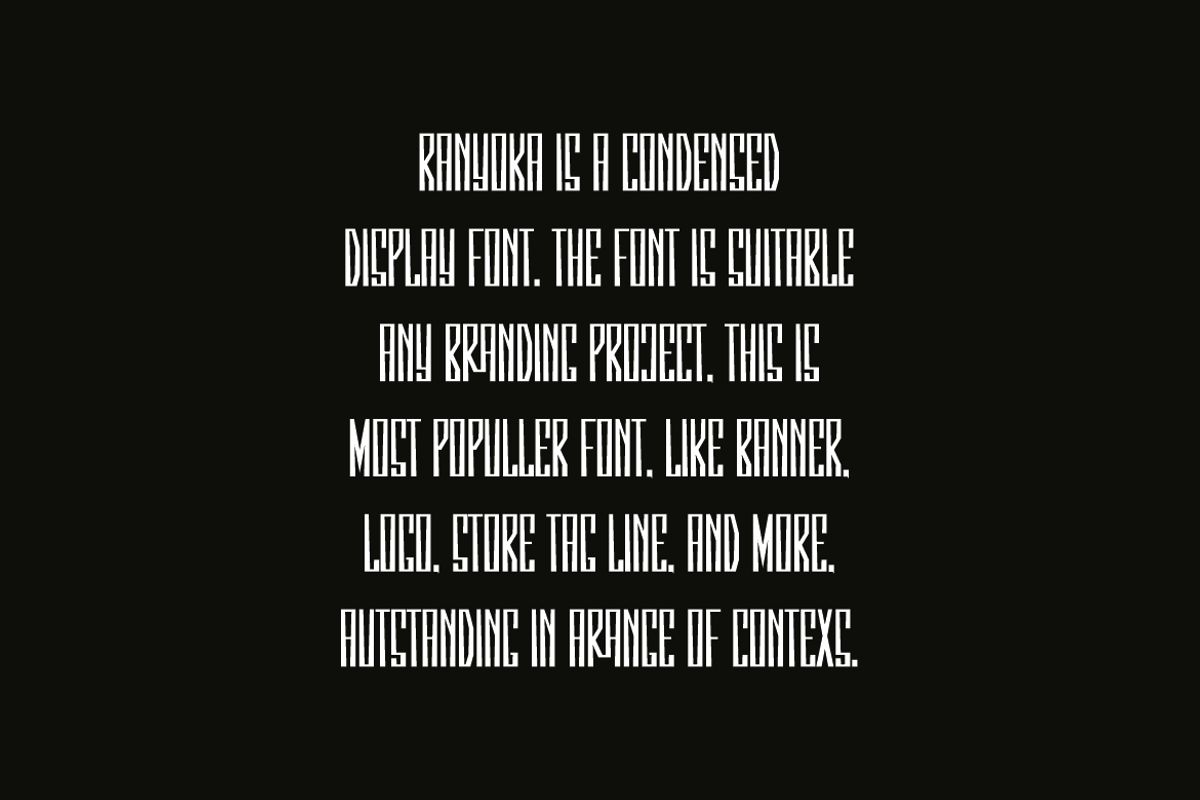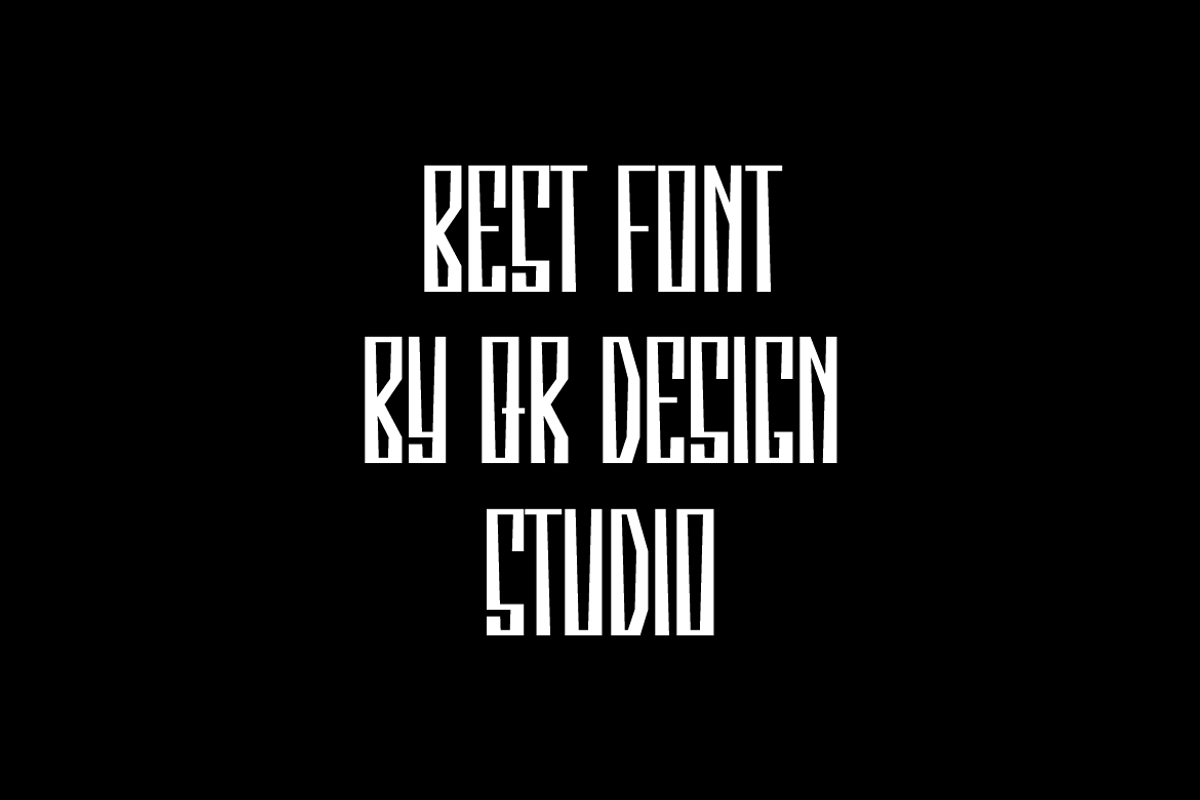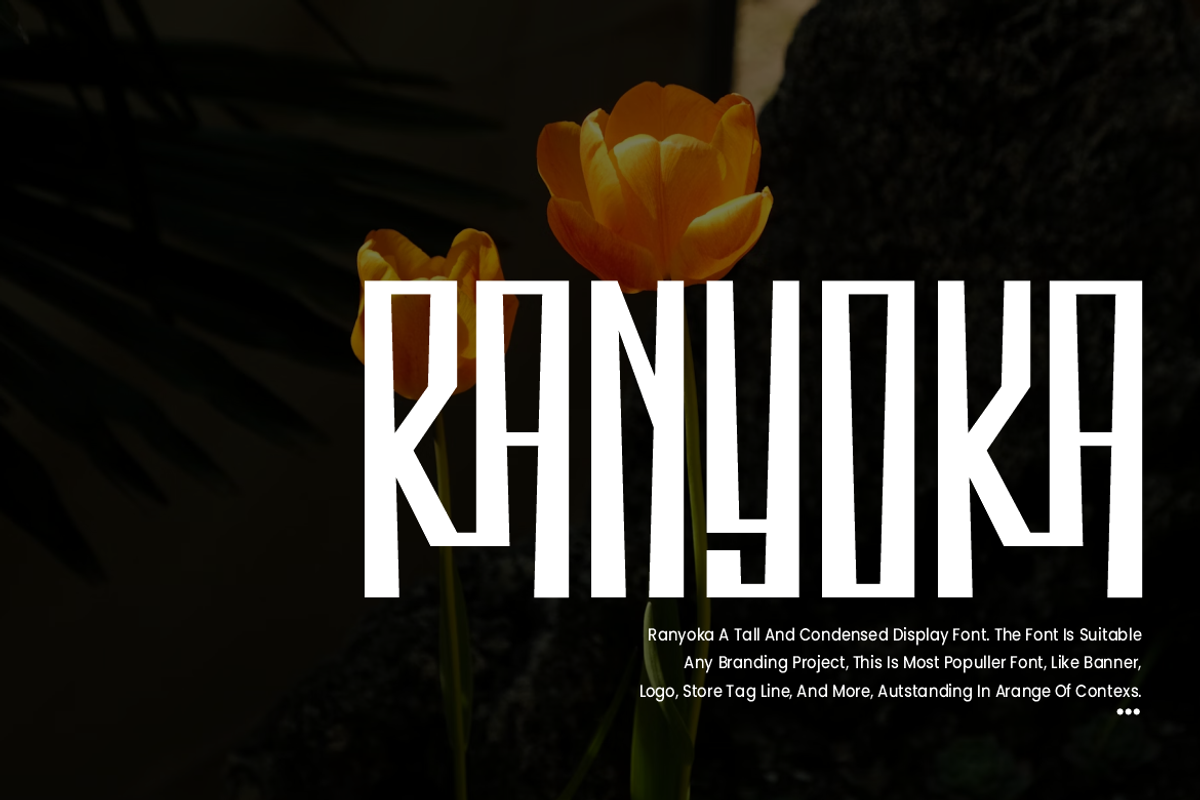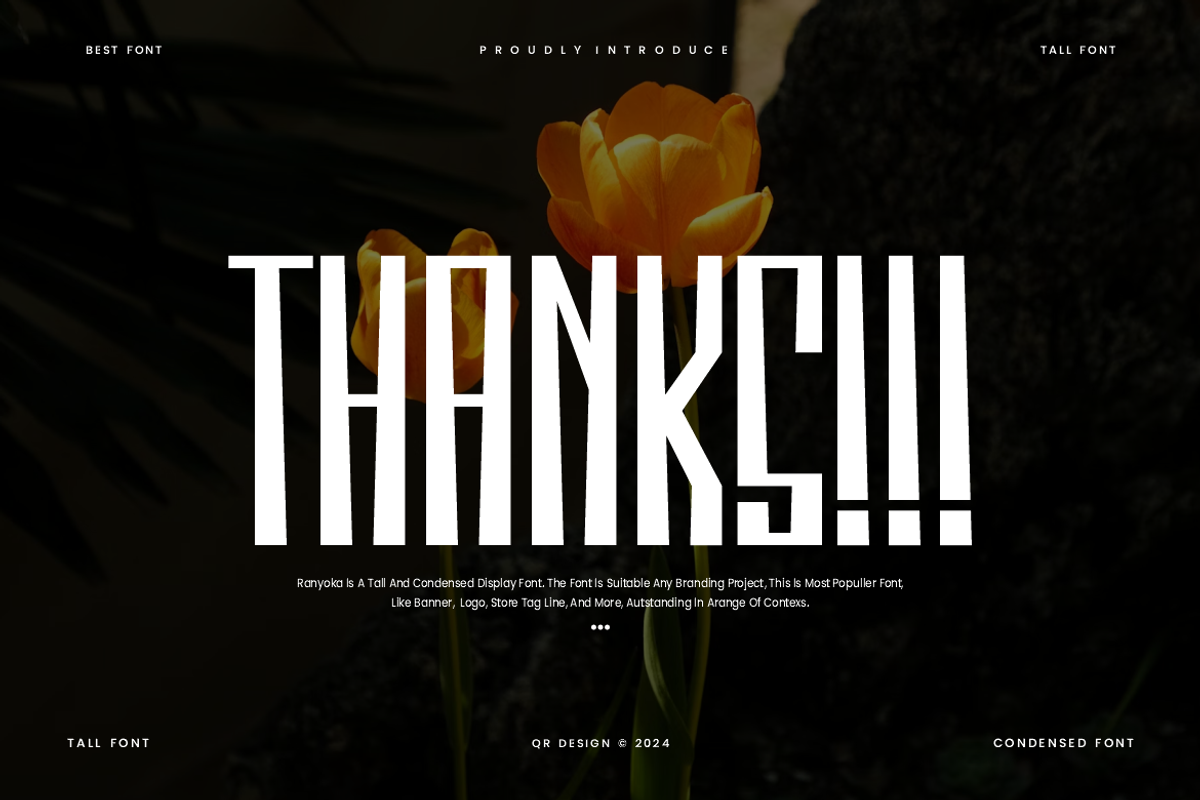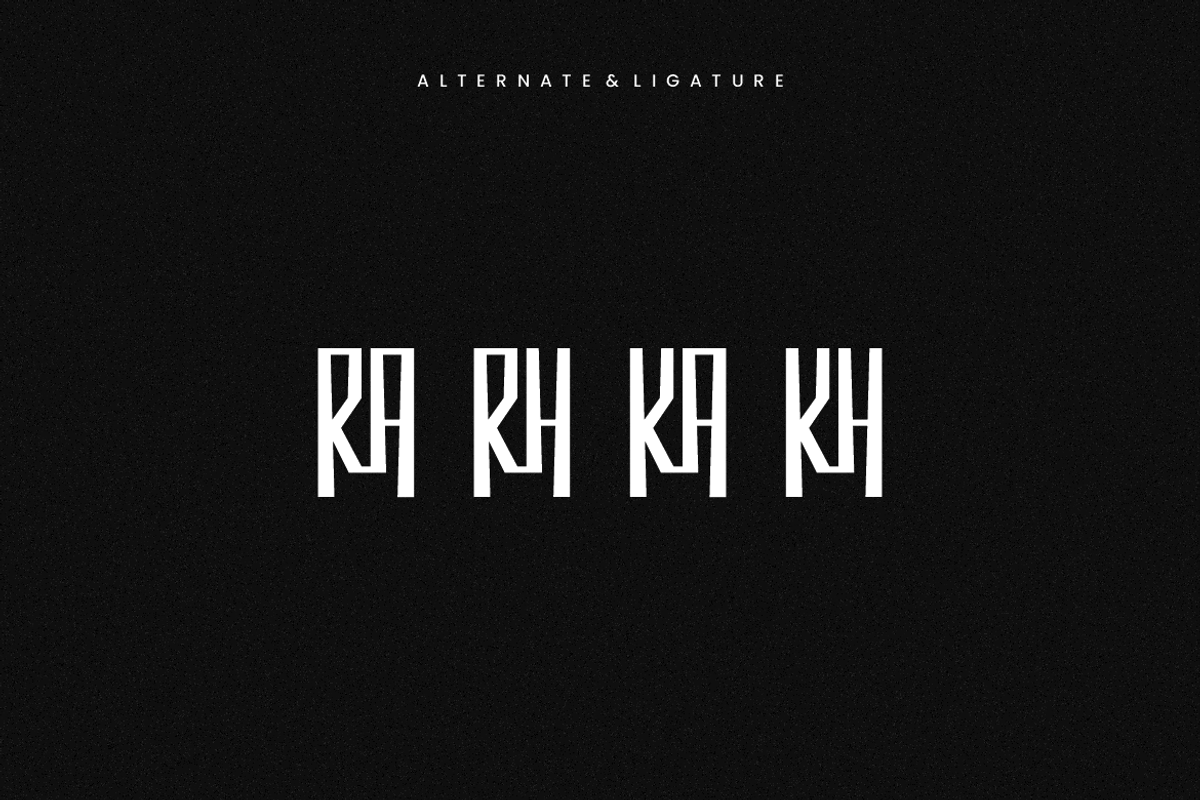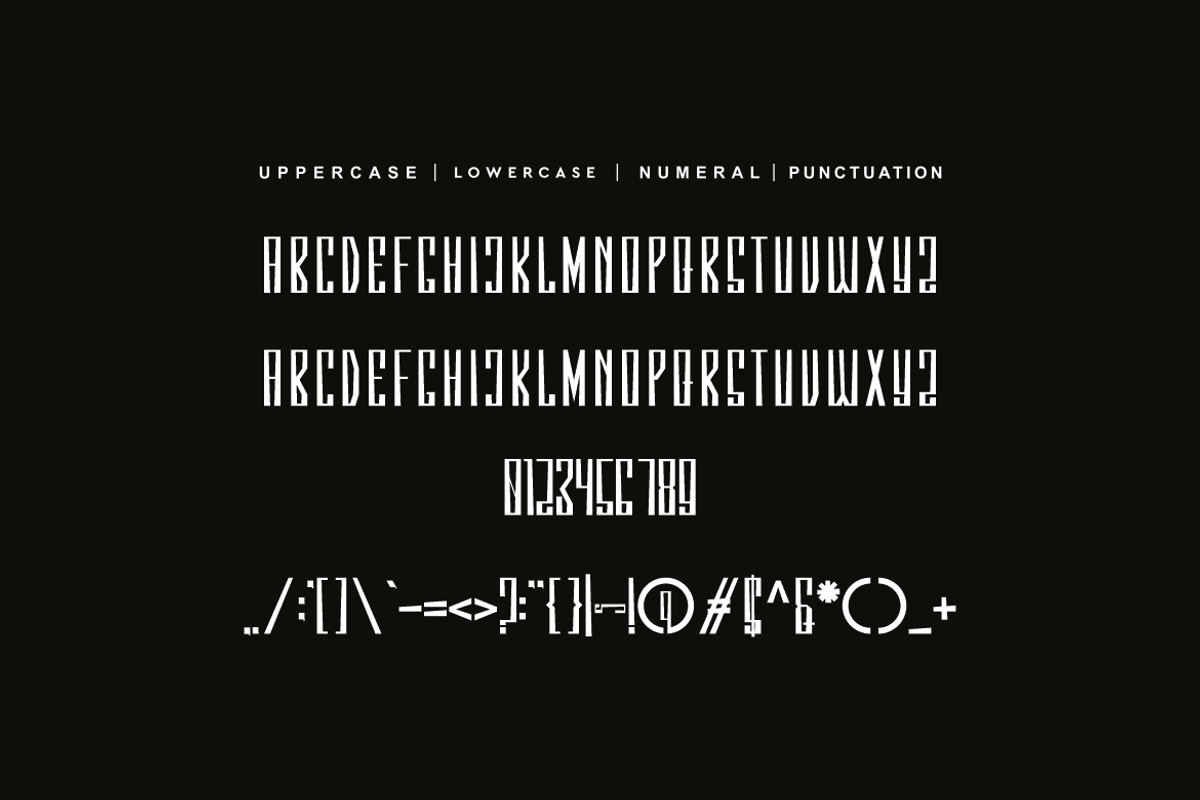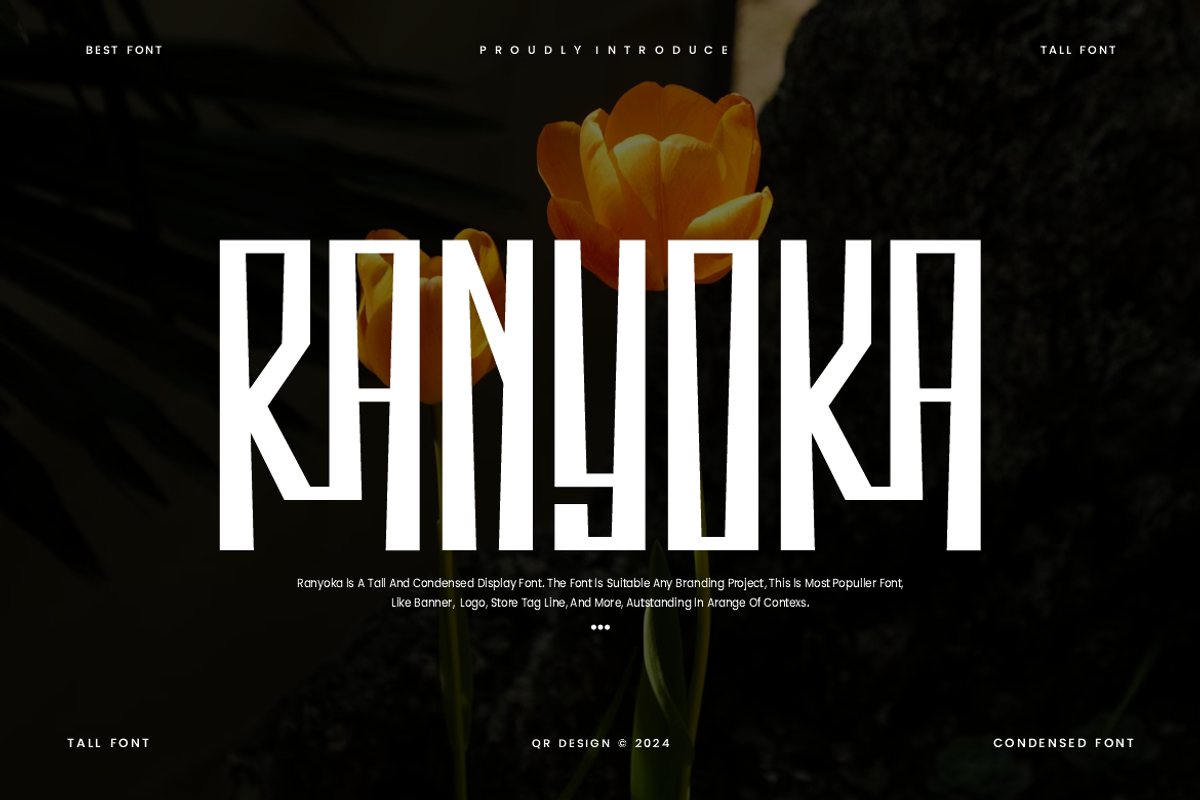
Ranyoka - Tall Condensed Font
Ranyoka Font is a bold and authentic display font. The font is suitable for any branding project like poster, logo, sport, and many more. Outstanding in a wide range of contexts.